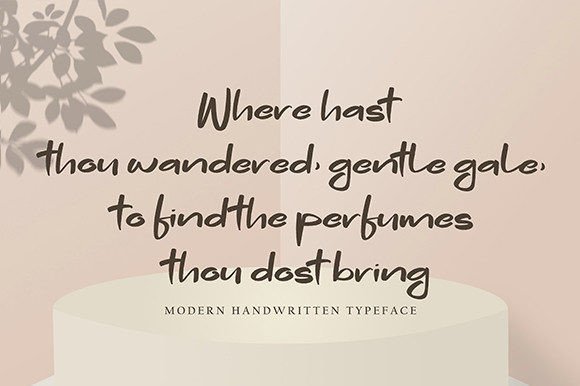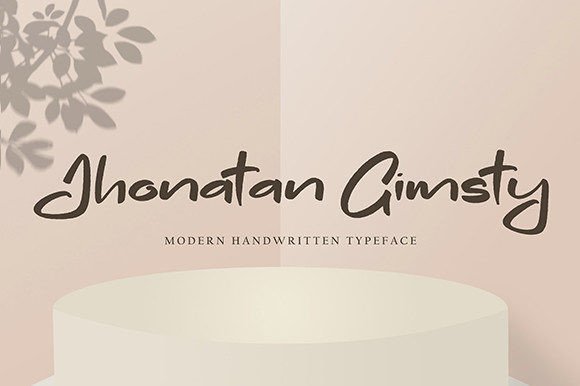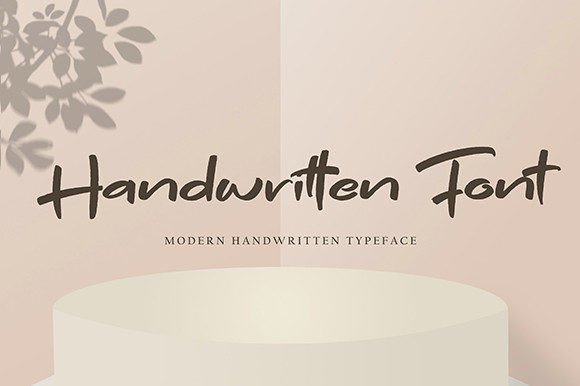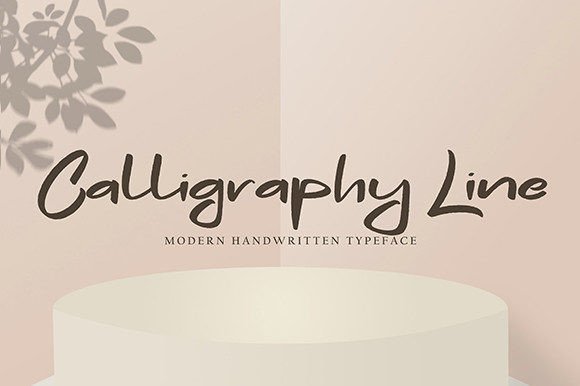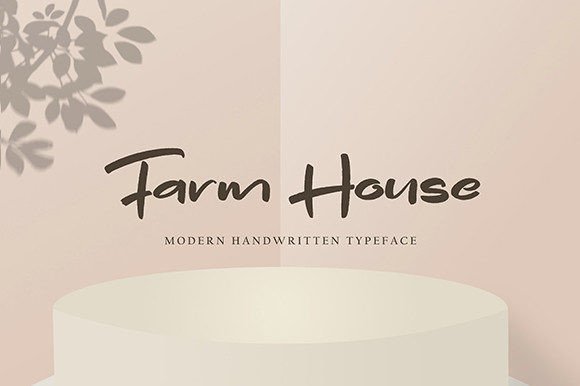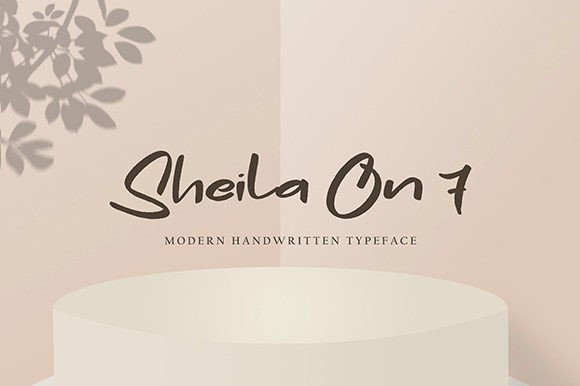
The Quest for the Perfect Font: Discovering Bottam South
Ah, the eternal struggle of finding the perfect font for our design projects. I still remember the time I was working on a branding project for a client, and I spent hours scouring the internet for a font that would capture the essence of their business. The client wanted something modern, yet elegant; something that would make their brand stand out from the crowd. And then, I stumbled upon Bottam South.
Bottam South is a handwritten font with a new style that has taken the design world by storm. Its unique blend of modernity and elegance makes it perfect for a wide range of projects, from quotes and logos to blog headers and posters.
An Honest Review: What I Love About Bottam South
So, what makes Bottam South so special? Here are a few things that I absolutely love about this font:
- ✨ Unique and modern design: Bottam South has a fresh and contemporary look that will make your designs stand out.
- ✅ Highly versatile: This font can be used for a wide range of projects, from digital designs to print materials.
- 💫 Great for headlines and titles: The bold and elegant design of Bottam South makes it perfect for headlines and titles.
- 🎨 Works well with illustrations: The font’s playful and whimsical nature makes it a great match for illustrations and hand-drawn elements.
Of course, no font is perfect, and Bottam South is no exception. Here are a few small quirks or limitations to keep in mind:
- 🤔 Limited use for body text: While Bottam South is great for headlines and titles, it may not be the best choice for body text due to its bold and decorative nature.
- ⚠️ May not work well with all design styles: Bottam South has a distinct personality, and it may not work well with all design styles, such as minimalist or corporate designs.
The Story Behind Bottam South
Bottam South was designed by a team of talented typographers who wanted to create a font that would capture the essence of modern elegance. The font’s unique design is inspired by the beauty of handwritten scripts and the simplicity of modern typography.
- Q: What type of projects is Bottam South best suited for?
- A: Bottam South is perfect for projects that require a modern and elegant font, such as branding, logos, blog headers, and posters.
- Q: Does Bottam South come with OpenType features?
- A: Yes, Bottam South comes with OpenType features, including glyphs and stylistic alternates.